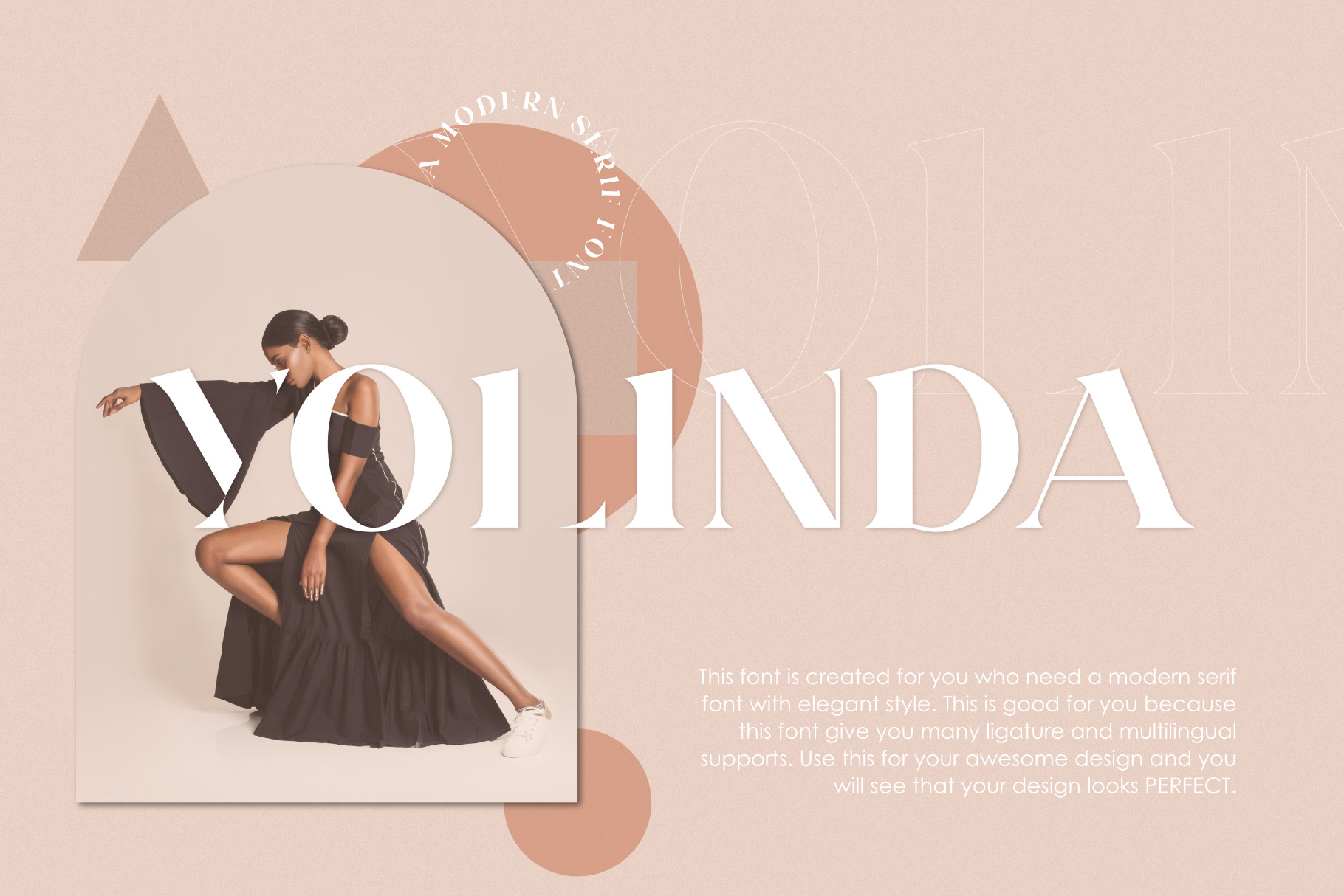
Yolinda Serif Font
Yolinda Serif Font inspired by the famous minimalist logo perfect for the purposes of designing templates, brochures, videos, advertising branding, logos and more.